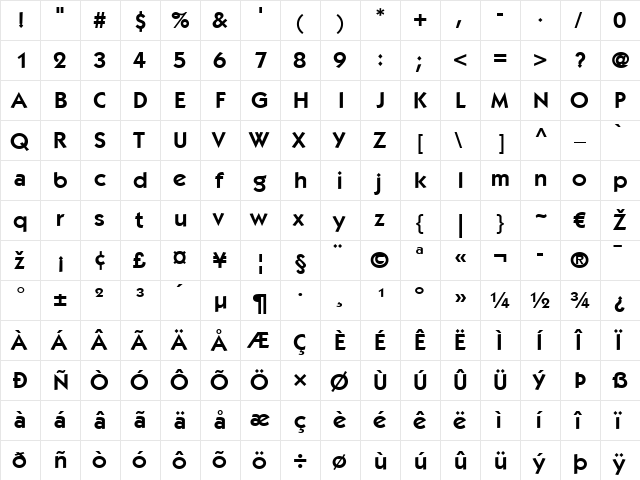
ITCKabel LT Book Bold Font Preview
ITCKabel LT Book Bold
ITCKabel LT Book Bold Font Details
Design Context for ITCKabel LT Book Typeface
ITCKabel LT Book offers clean, dependable letterforms without strong stylistic allegiance, making it a practical choice for designers who need flexibility. Its bold stroke weight gives it real presence on the page.
Pro Tip: Use ITCKabel LT Book in both headline and body roles to test its range before committing to a single application.